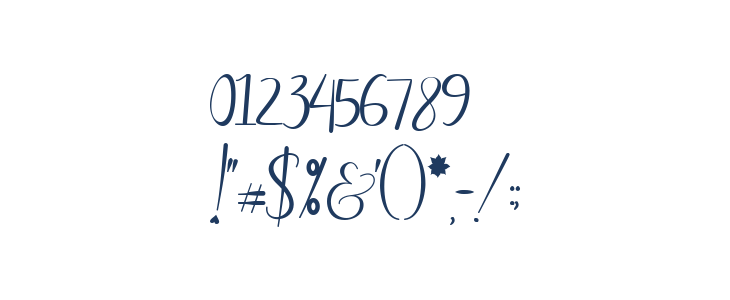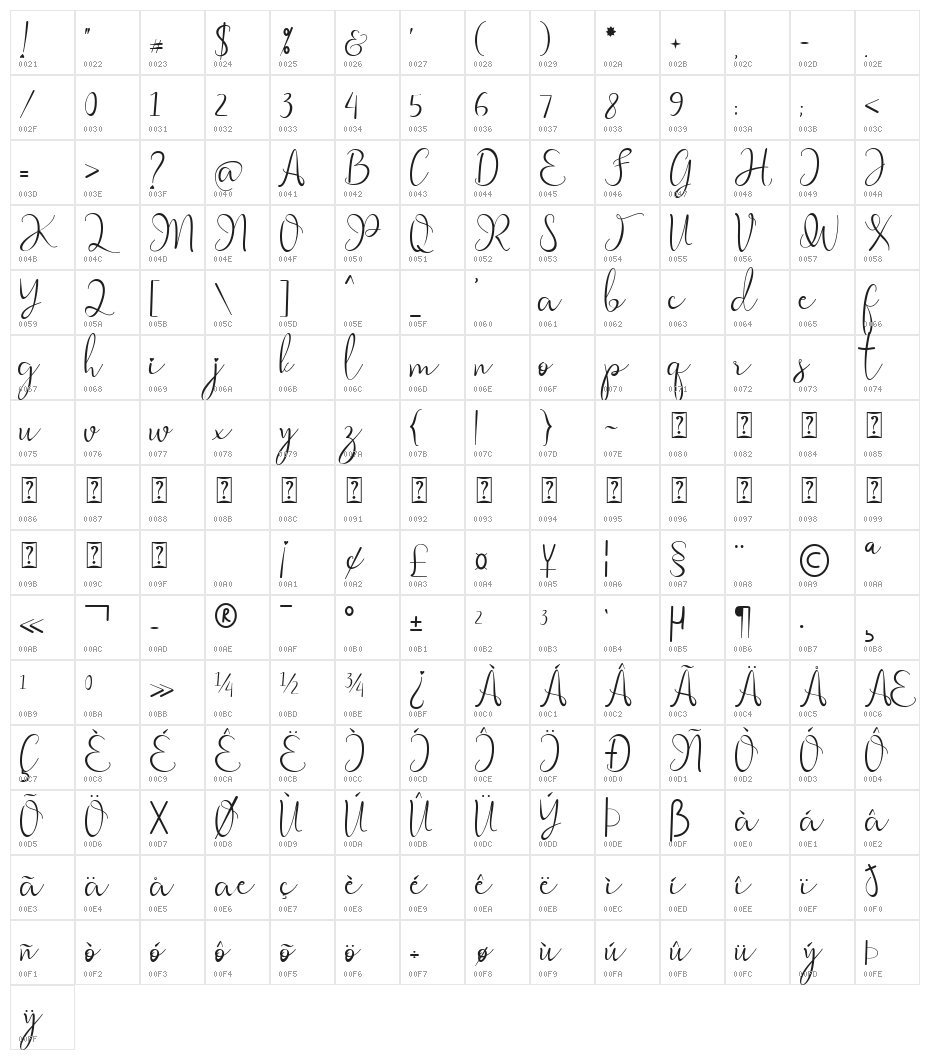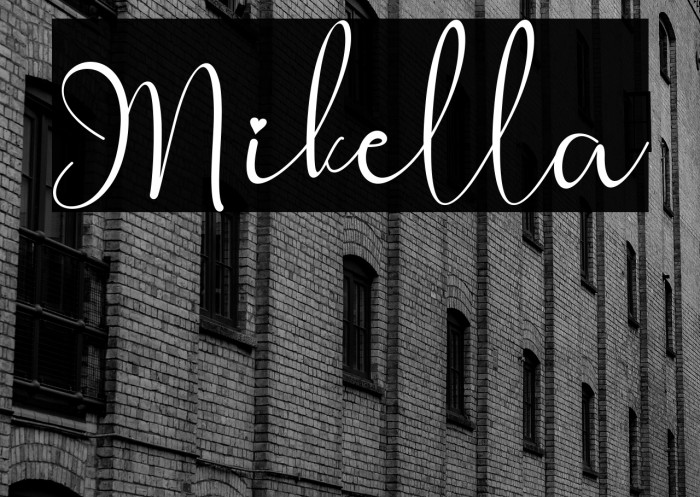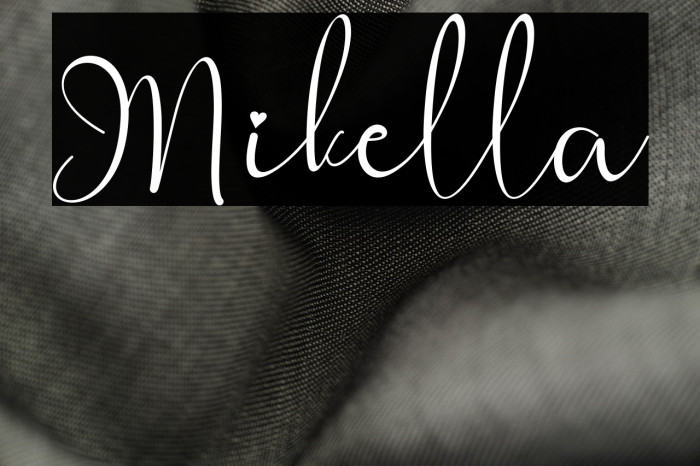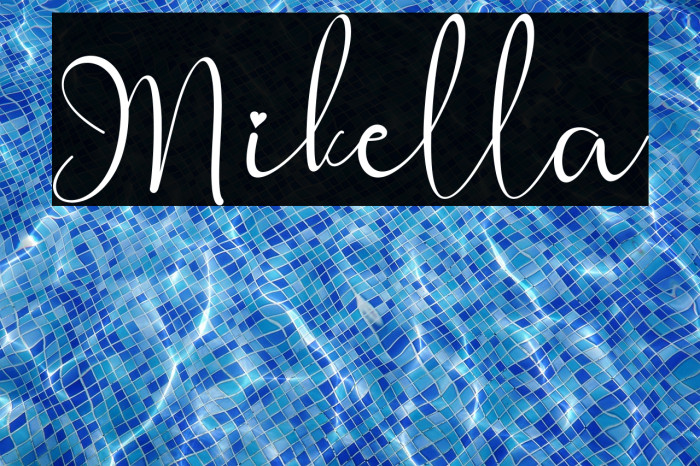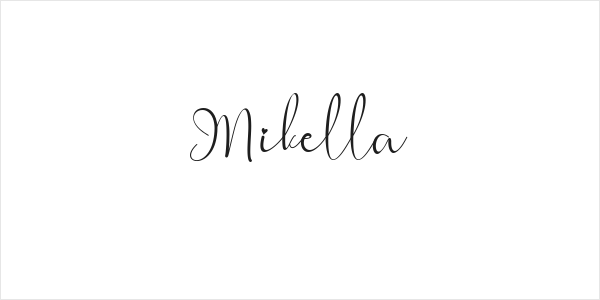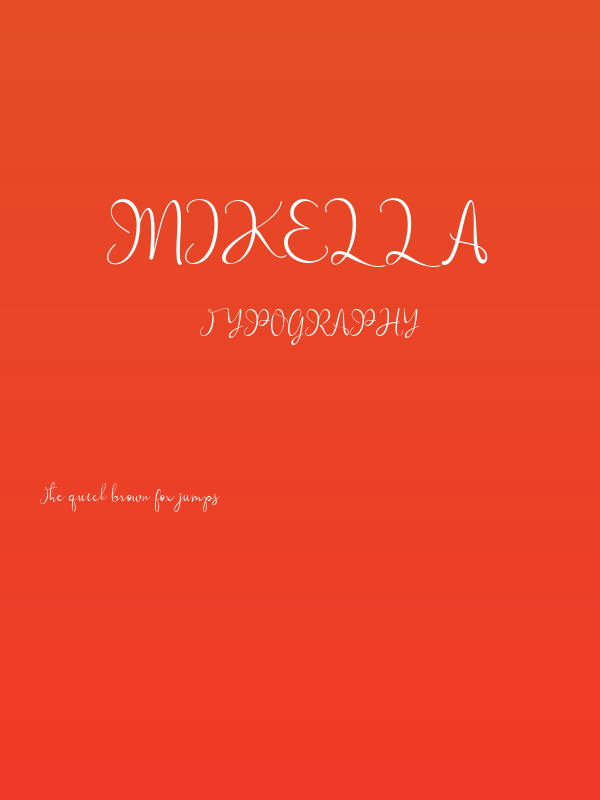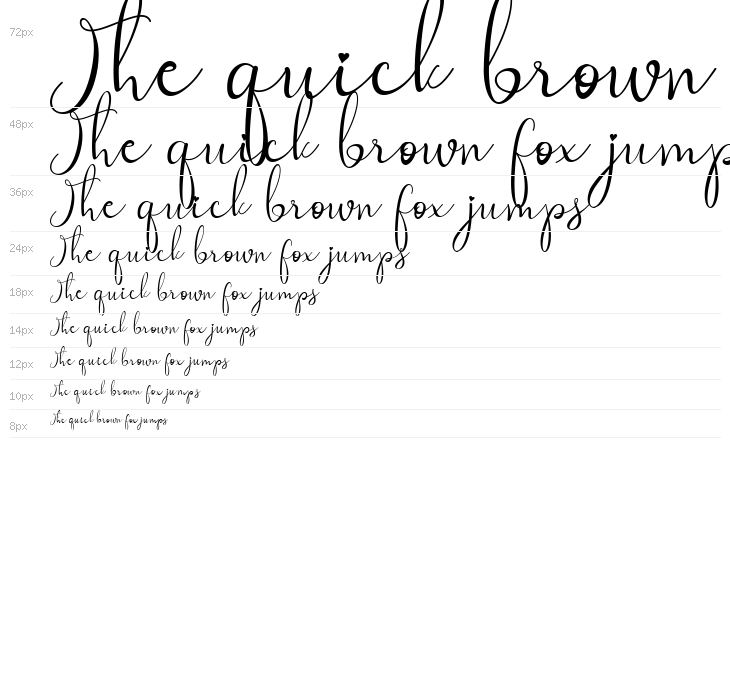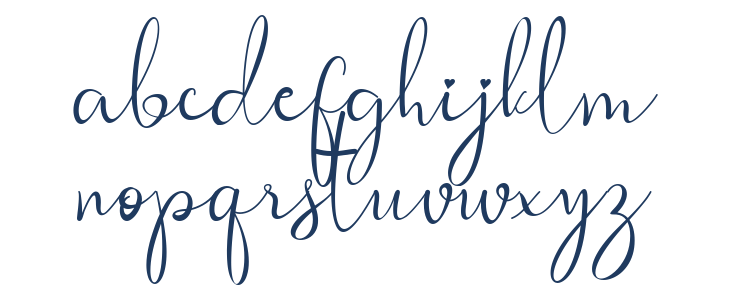
Mikella Font
Mikella Description
This font features a whimsical and elegant script style with flowing, interconnected letters. The uppercase characters exhibit a graceful loop and curl design, while the lowercase letters maintain a consistent fluidity, enhancing the overall aesthetic. The numerals are distinct yet harmonize with the script's playful nature. Special characters are creatively integrated, adding a touch of charm and uniqueness. The font's design is perfect for projects that require a personal and artistic touch, such as invitations, greeting cards, or branding materials.
Use CaseLogos, Invitations, Artistic projects
Proposed ProjectsIdeal for wedding invitations, greeting cards, personal branding, and artistic projects.